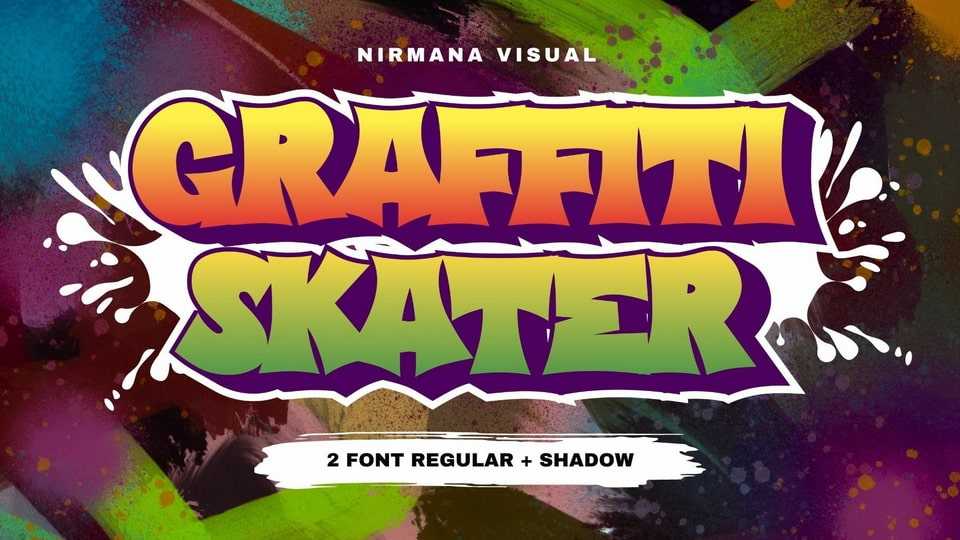
Download Graffiti Skater font, a bold display typeface that captures the rebellious spirit of street art. Its thick, all caps letters feature jagged edges and unique embellishments that evoke the look of painted graffiti.